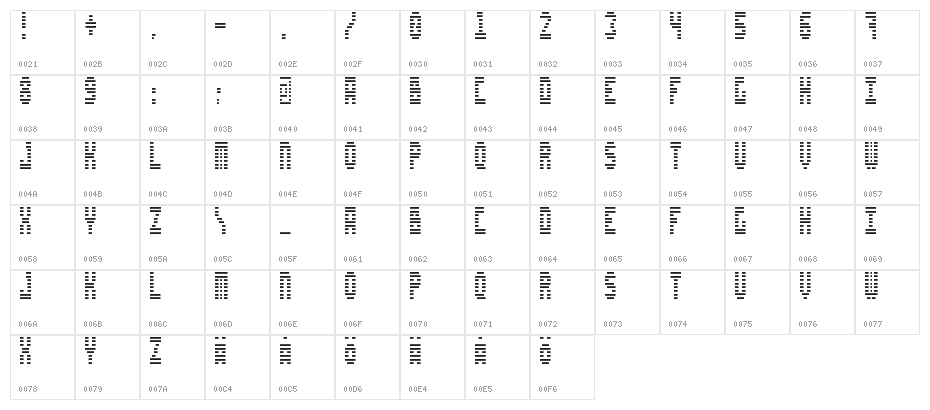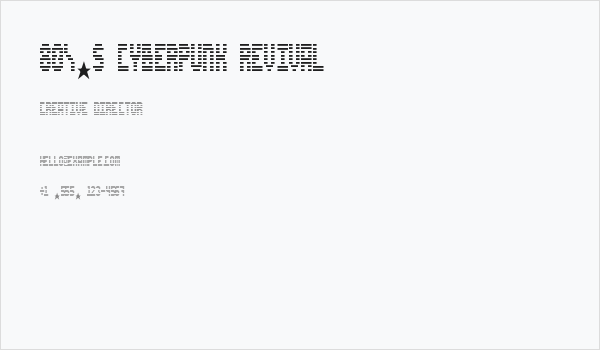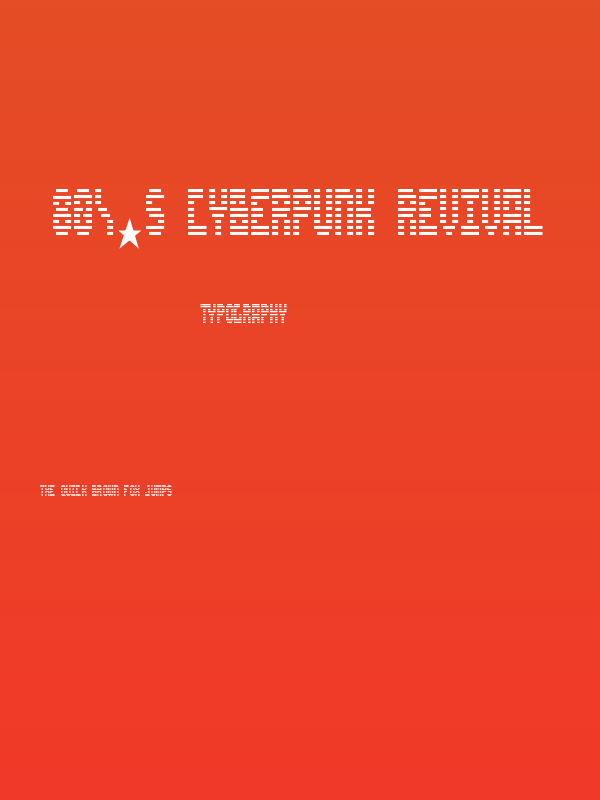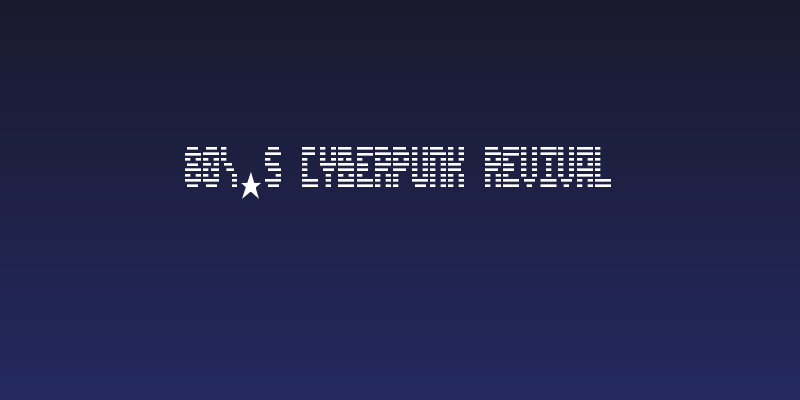
80's Cyberpunk Revival Font
80's Cyberpunk Revival Description
This font embodies a distinct 80s cyberpunk aesthetic, characterized by its bold, blocky, and pixelated design. Each character is constructed from a series of horizontal lines, creating a digital, futuristic appearance reminiscent of early computer graphics and arcade games. The uppercase and lowercase letters maintain a consistent style, with a uniform height and width that enhances its structured look. Numbers and special characters follow the same design principles, ensuring a cohesive visual experience. The font's unique style makes it ideal for projects seeking a retro-futuristic or tech-inspired theme.
| Overall Style | Retro-Futuristic |
| Proposed Projects | Ideal for video game design, tech-themed posters, retro-futuristic branding, and digital art projects. |